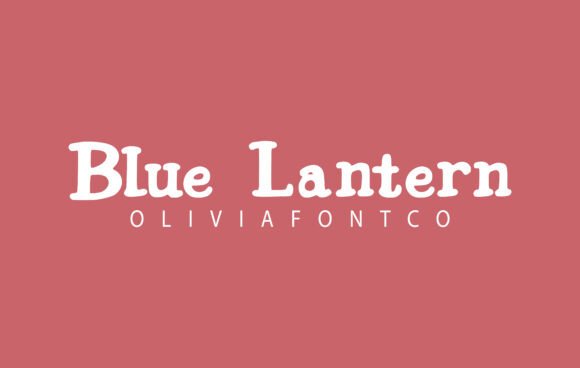
Introducing the Blue Lantern Font: A Romantic Handwritten Font for Creative Expression
The Blue Lantern font is a beautiful, authentic handwritten font that has captured the hearts of designers and creative enthusiasts alike. With its romantic touch and elegant feel, this font has become a favorite among those looking to add a touch of sophistication to their designs. In this article, we’ll take a closer look at the Blue Lantern font, its features, and how it can elevate your creative ideas to new heights.
What is the Blue Lantern Font?
The Blue Lantern font is a carefully crafted handwritten font that exudes a sense of romance and whimsy. Its authentic feel makes it perfect for a wide range of design applications, from magazine headlines to social media graphics, branding, wedding invitations, and more. This font has been expertly designed to be highly legible, making it suitable for use as both title and body text.
Key Features of the Blue Lantern Font
- Authentic Handwritten Style: The Blue Lantern font boasts a genuine handwritten look that adds a personal touch to any design.
- Romantic Touch: With its elegant feel and flowing lines, this font is perfect for designs that require a romantic or whimsical touch.
- High Legibility: The font’s clear and readable design makes it ideal for use in a variety of contexts, from titles to body text.
- Versatile: The Blue Lantern font can be used for a wide range of design applications, including magazine headlines, social media graphics, branding, wedding invitations, and more.
Uses of the Blue Lantern Font
The Blue Lantern font is incredibly versatile and can be used in a variety of design contexts. Here are some ideas to get you started:
1. Magazine Headlines and Articles
The Blue Lantern font is perfect for magazine headlines, adding a touch of elegance and sophistication to any article or feature.
2. Social Media Graphics
Use the Blue Lantern font to create eye-catching social media graphics that stand out from the crowd. Its romantic touch and elegant feel make it perfect for creating engaging and shareable content.
3. Branding and Logo Design
The Blue Lantern font can be used to create beautiful and memorable brand identities. Its unique and authentic feel makes it perfect for businesses looking to establish a strong and recognizable brand.
4. Wedding Invitations and Stationery
The Blue Lantern font is a popular choice for wedding invitations and stationery, adding a touch of romance and whimsy to any design.
5. Cards and Greeting Cards
Use the Blue Lantern font to create beautiful and heartfelt cards and greeting cards for special occasions.
Benefits of Using the Blue Lantern Font
The Blue Lantern font offers a range of benefits for designers and creative enthusiasts. Here are some of the advantages of using this beautiful font:
1. Unique and Authentic Look
The Blue Lantern font boasts a unique and authentic look that sets it apart from other fonts. Its handwritten style and romantic touch make it perfect for designs that require a personal touch.
2. Highly Legible
The font’s clear and readable design makes it highly legible, even at small sizes. This makes it perfect for use in a variety of contexts, from titles to body text.
3. Versatile
The Blue Lantern font is incredibly versatile and can be used in a wide range of design applications. Its elegant feel and romantic touch make it perfect for designs that require a touch of sophistication.
4. Easy to Use
The Blue Lantern font is a beautiful and authentic handwritten font that offers a range of benefits for designers and creative enthusiasts. Its romantic touch and elegant feel make it perfect for designs that require a touch of sophistication. With its high legibility and versatility, this font is perfect for a wide range of design applications, from magazine headlines to social media graphics, branding, wedding invitations, and more.
Whether you’re a professional designer or a creative enthusiast, the Blue Lantern font is a great choice for any design project. Its unique and authentic look, combined with its ease of use, make it a valuable addition to any design toolkit.